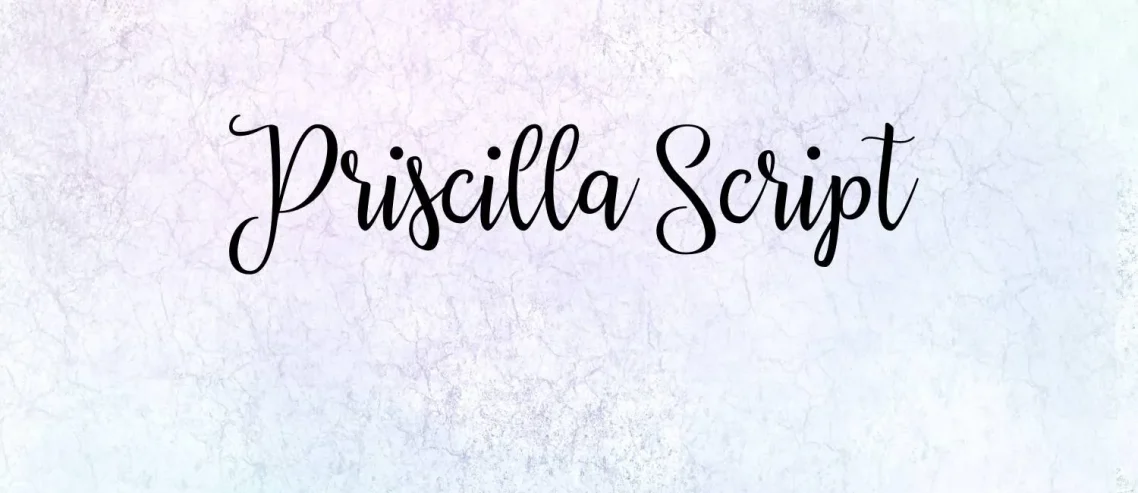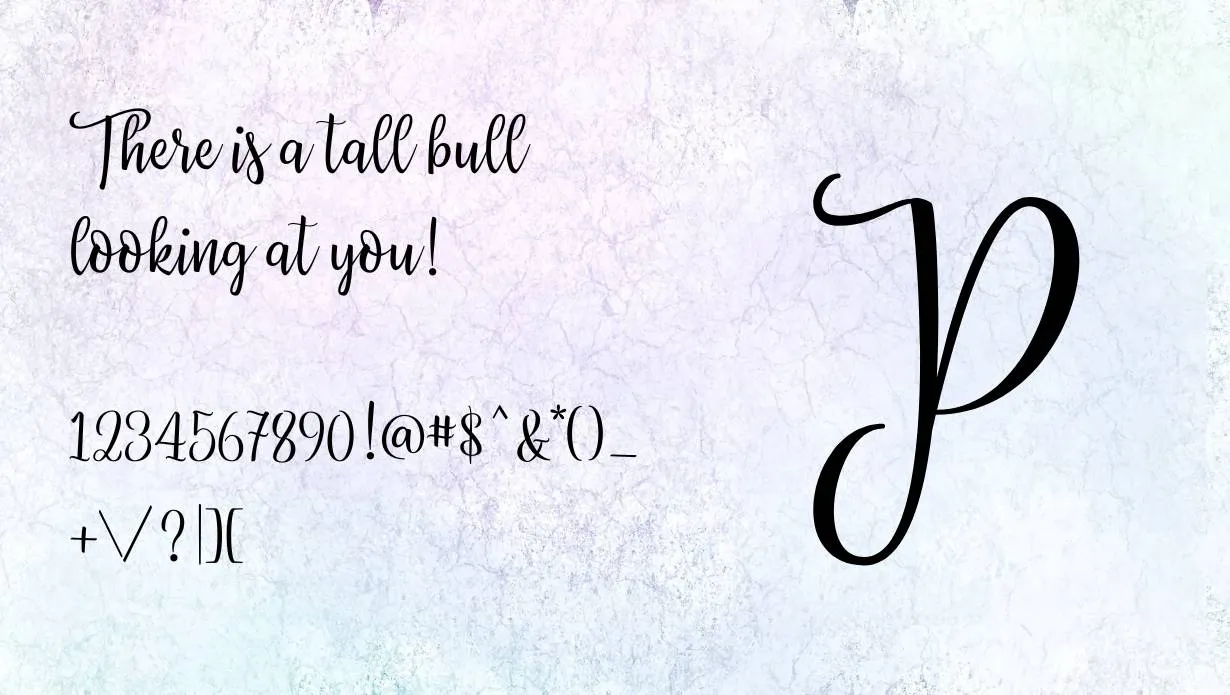
Priscilla Script is an elegant and flowing script font that brings a sense of beauty and sophistication to text.
With its cursive strokes and decorative flourishes, it is commonly used in projects requiring a touch of romance, such as wedding invitations, event materials, or upscale branding. Priscilla Script’s purpose is to add a graceful and expressive script to text, creating a timeless and refined aesthetic in design projects that aim for elegance and charm.